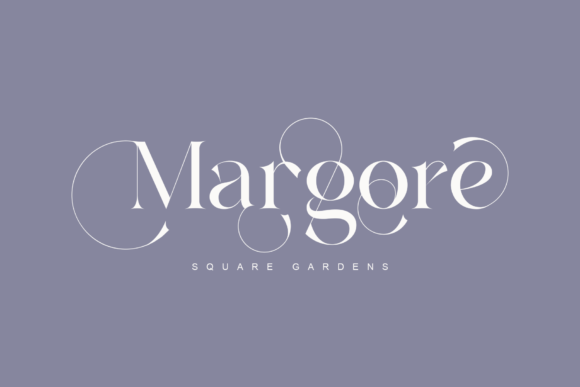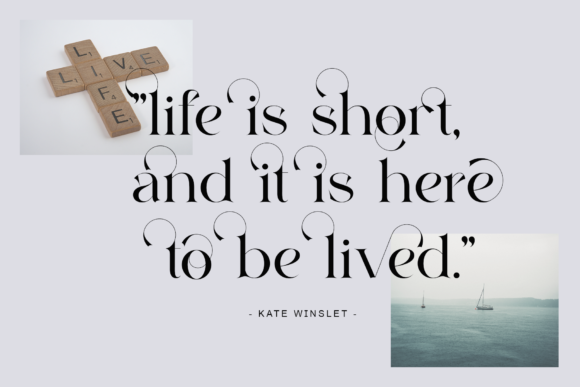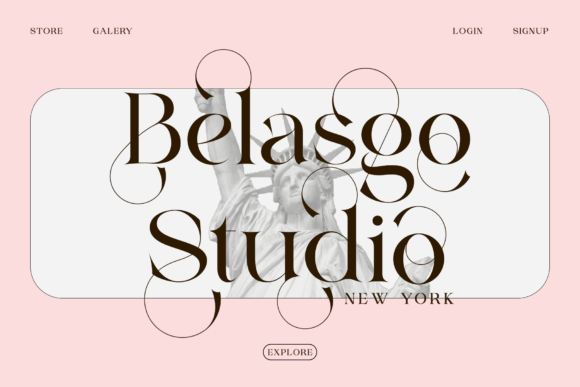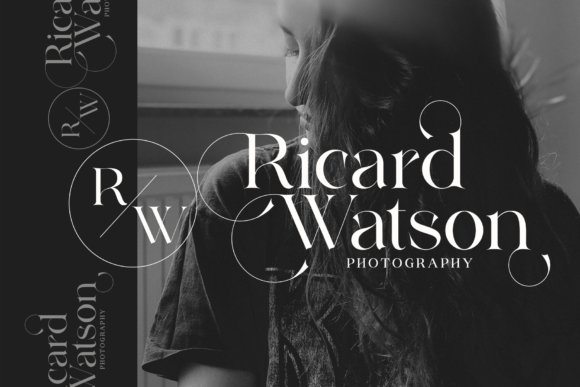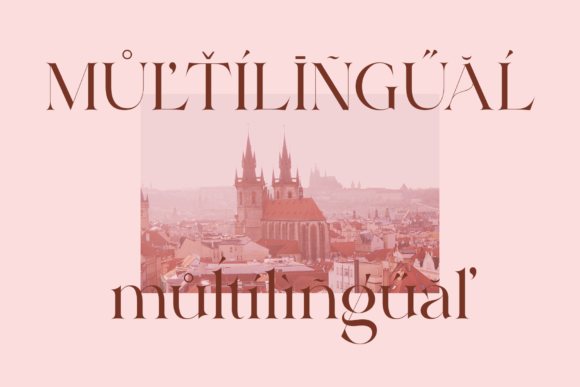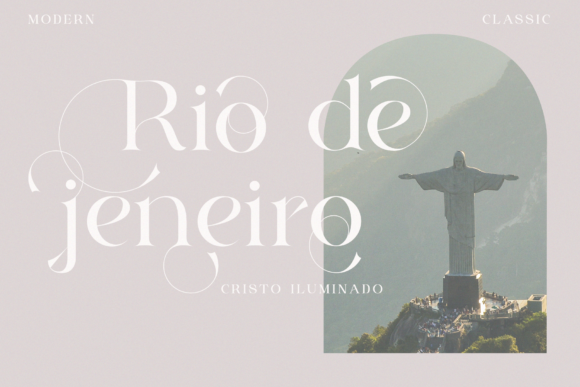
Discover the Timeless Elegance of Adestone Font
In the world of typography, a good font can make all the difference in creating visually stunning designs. For designers and crafters looking for a serif font that exudes elegance and sophistication, Adestone Font is an excellent choice. This lovely and timeless font is perfect for creating eye-catching logos, branding, and quotes that will leave a lasting impression.
What Makes Adestone Font Special?
Adestone Font is a beautifully crafted serif font that boasts a classic and traditional look. Its timeless design makes it suitable for a wide range of projects, from vintage-inspired branding to modern digital designs. The font’s elegant lines, precise curves, and perfect letter spacing create a harmonious visual experience that will elevate your designs to the next level.
Key Features of Adestone Font
- PUA Encoded: Adestone Font is PUA (Private Use Area) encoded, which means you can access all the glyphs and swashes with ease. This feature allows you to unlock the full potential of the font and experiment with various design elements.
- Wide Range of Glyphs: With Adestone Font, you’ll get access to a vast library of glyphs, including uppercase and lowercase letters, numbers, punctuation marks, and special characters. This extensive range of glyphs provides endless possibilities for creative expression.
- Swashes and Flourishes: The font comes with a variety of swashes and flourishes that can be used to add a touch of elegance and sophistication to your designs. These decorative elements are perfect for creating eye-catching titles, headings, and quotes.
Use Cases for Adestone Font
Adestone Font is an incredibly versatile font that can be used for a wide range of design projects, including:
- Logo Design: Create stunning logos that make a lasting impression with Adestone Font’s elegant and sophisticated design.
- Branding: Use Adestone Font to develop a consistent brand identity that exudes professionalism and style.
- Quotes and Typography: Add a touch of elegance to your quotes and typography with Adestone Font’s beautiful swashes and flourishes.
- Digital Design: Adestone Font is perfect for digital designs, including social media graphics, blog posts, and website headers.
Why Choose Adestone Font?
With so many fonts available, why choose Adestone Font? Here are a few reasons why designers and crafters love this font:
- Unique and Timeless Design: Adestone Font boasts a unique and timeless design that will make your designs stand out from the crowd.
- Ease of Use: The font’s PUA encoding makes it easy to access all the glyphs and swashes, allowing you to focus on your design rather than getting bogged down in technical details.
- High-Quality Design: Adestone Font is designed with high-quality craftsmanship in mind, ensuring that your designs look professional and polished.
In conclusion, Adestone Font is an exceptional serif font that offers a unique blend of elegance, sophistication, and versatility. Its timeless design, PUA encoding, and wide range of glyphs make it an excellent choice for designers and crafters looking to create stunning logos, branding, and quotes. Whether you’re working on a digital design or a print project, Adestone Font is sure to elevate your designs to the next level.